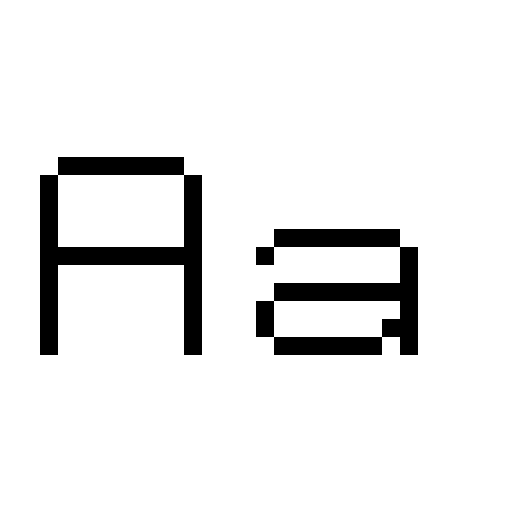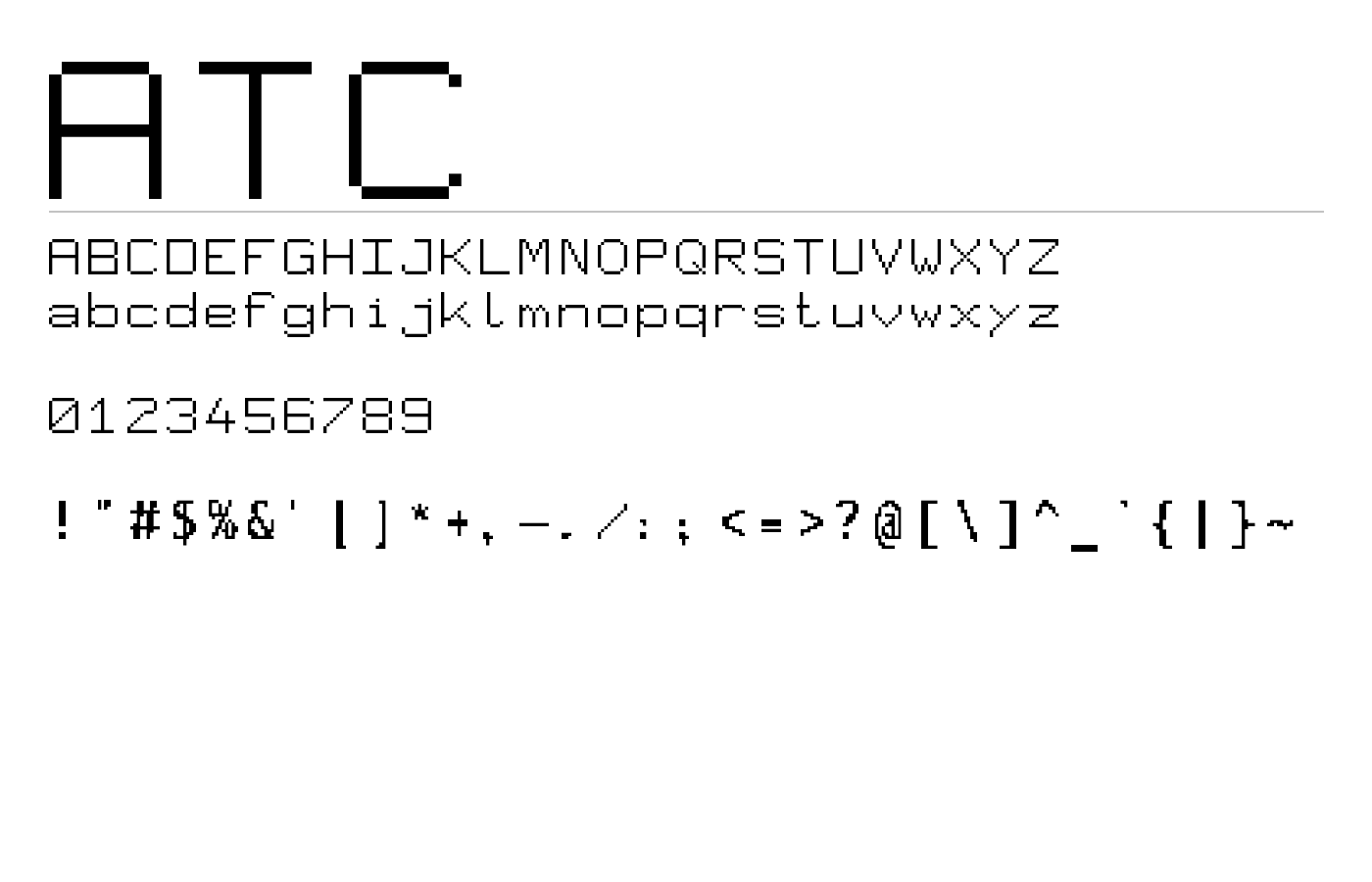
ATC Font is a clean, pixel-based sans serif typeface that evokes a retro digital or tech-inspired style. Its monospaced, geometric letterforms with uniform stroke widths and distinct pixel edges make it ideal for digital displays, coding, or vintage computer aesthetics. This font works well for tech branding, screen-based design, and projects seeking a nostalgic yet modern digital vibe.
ATC Font
About ATC Font